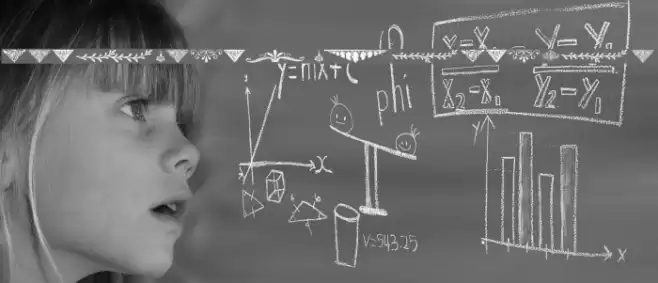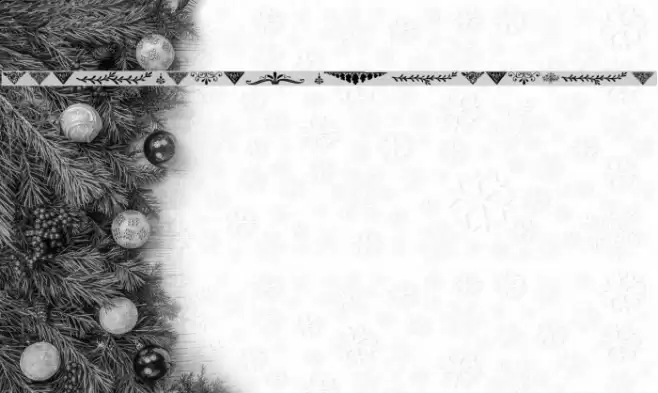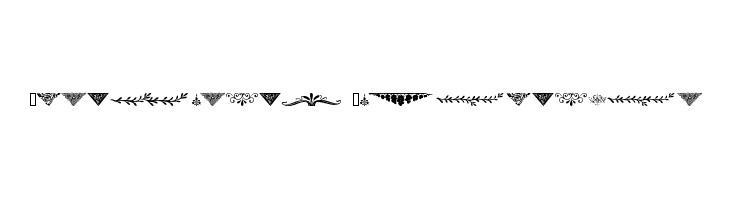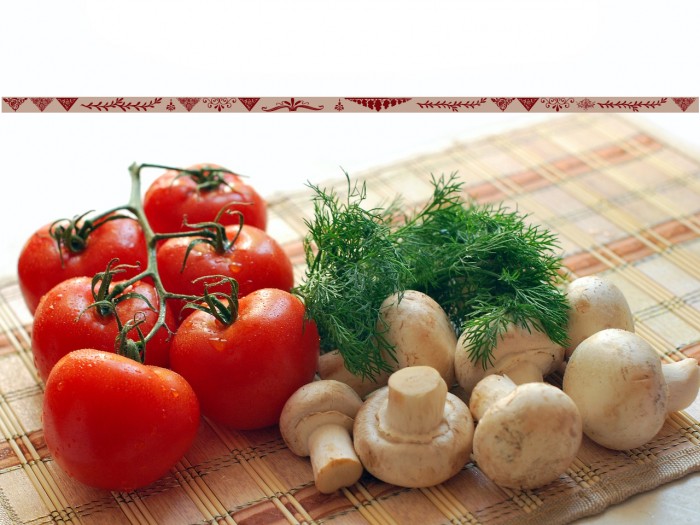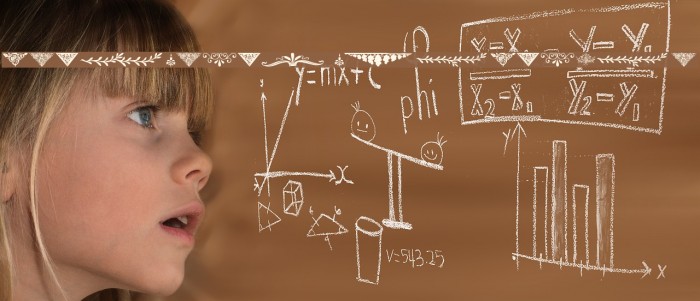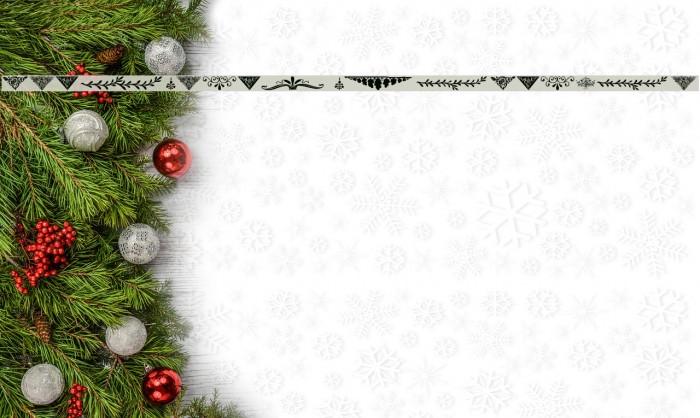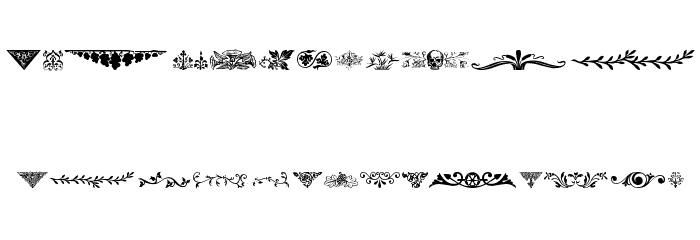
Ornamental Decoration Font
Ornamental Decoration Description
A decorative font consisting of intricate ornamental and floral motifs, designed as typographic embellishments rather than standard alphanumeric characters. The glyphs feature detailed swirls, flourishes, and symmetrical patterns, ideal for adding visual interest to design projects.
Highly decorative ornamental motifs for embellishment from Decorative fonts.
- Proposed Projects: Wedding invitations, certificates, vintage posters, decorative borders, book covers, scrapbooking, and graphic design accents.
- Overall Style: Decorative, Vintage
- Use Case: Borders, dividers, embellishments, not for body text or headlines.